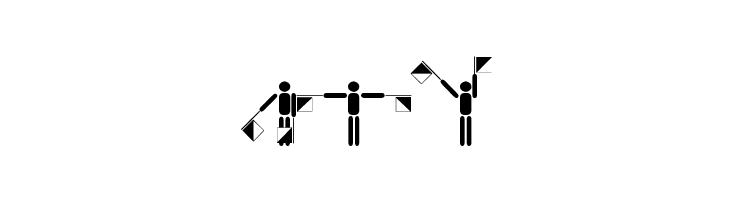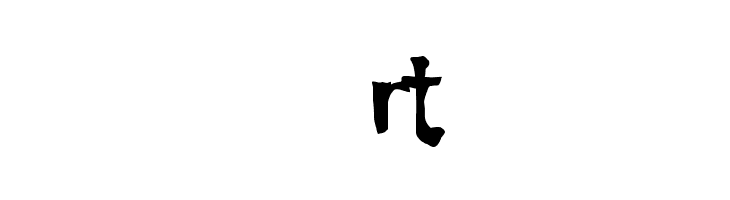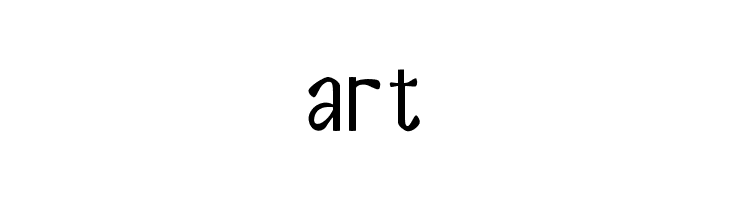
( FancyFrenzy - Francy van Lierop )
A romantic, heart-themed handwritten font perfect for love-themed projects.
( Imran Nasution - Bayo Suti XV - imrannasution1.blogspot.com )
A semaphore-inspired font using flag positions to represent characters.
( LetterStuff Typefoundry )
A playful, hand-drawn font with bold, rounded characters and a whimsical style.
( Malre - David Masson Alalire - www.facebook.com/Community-Search-146103155534356/ )
A bold, pictographic dingbat set with diverse icons for signage and infographics.
( Menchulica - Menchu Gómez Martín - menchulica.com )
A playful, hand-drawn font with bold, irregular characters.
( MrBray - Jesse Bray - www.mrbray.com/ )
A playful, brain-inspired decorative font with bold, rounded characters.
( Muhammad Romzul Khoir )
A fluid and elegant script font with a natural, cursive style.
( Sholeha Anata )
An elegant and flowing script font with bold, cursive letterforms.
( Southype - Rodrigo Gonzalez - www.southype.com )
A collection of bold, clear astronomical symbols with a cosmic theme.
( Taylor Adkins )
A modern, vintage-inspired font with tall, narrow letterforms and subtle decorative elements.